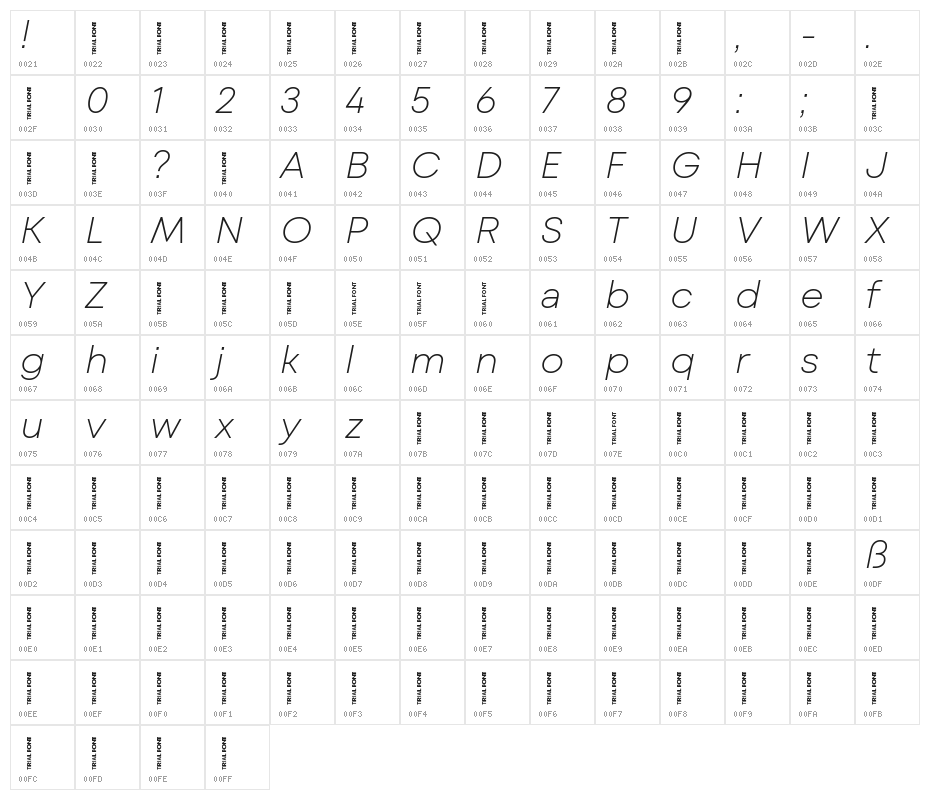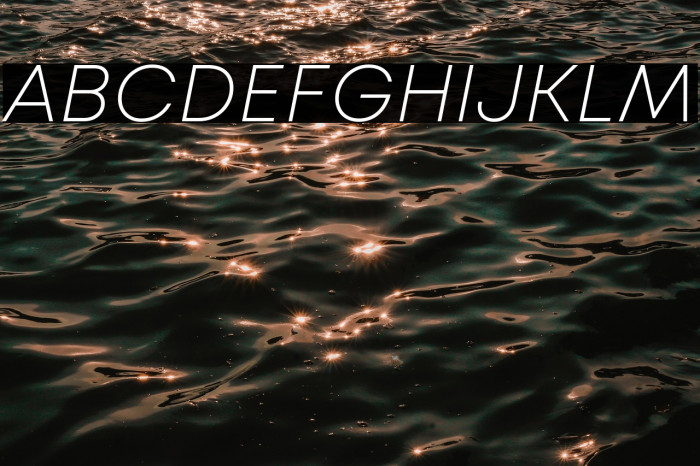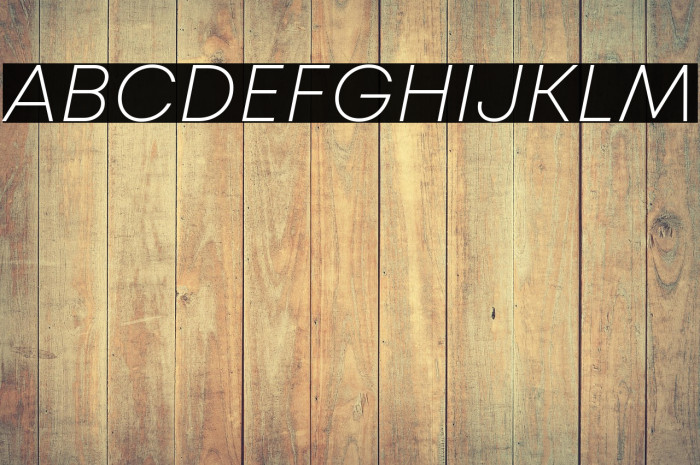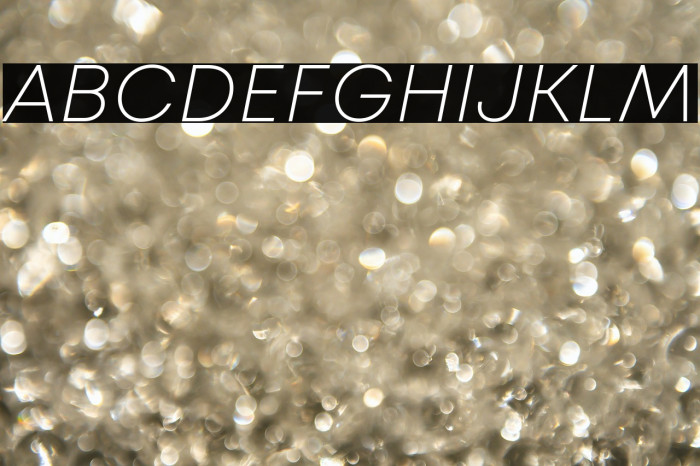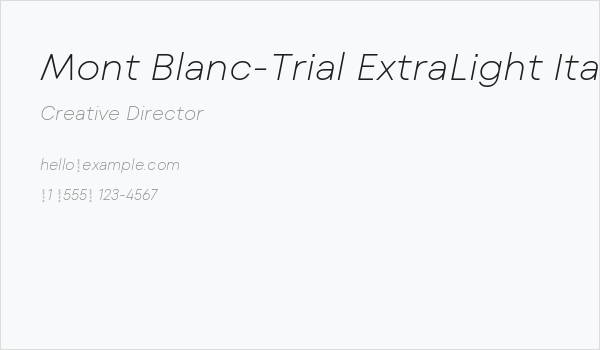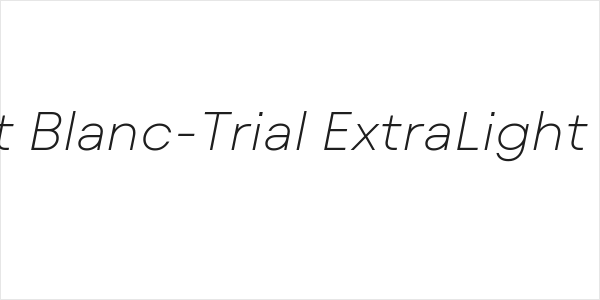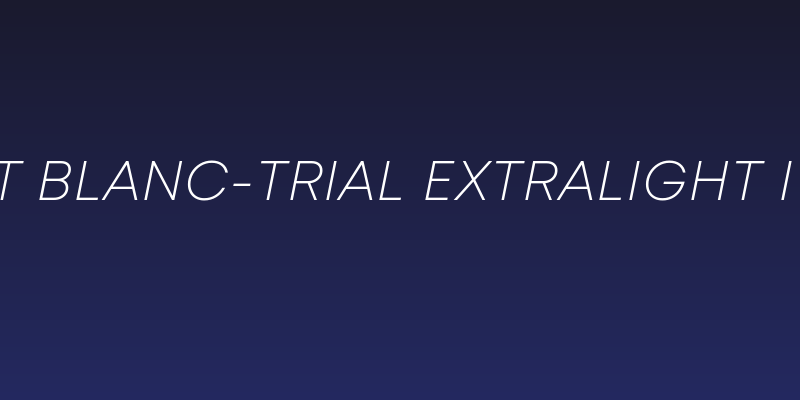
Mont Blanc-Trial ExtraLight Italic Font
Mont Blanc-Trial ExtraLight Italic Description
This font features a sleek and elegant design with a modern aesthetic. The characters are crafted with an extra light weight, giving them a delicate and airy appearance. The italic style adds a sense of motion and fluidity, enhancing its contemporary feel. The strokes are consistent and smooth, with a low contrast between thick and thin lines, which contributes to its clean and minimalist look. The character spacing is normal, ensuring readability while maintaining a stylish appearance. This font is versatile and can be used in various design projects that require a touch of sophistication.
| Proposed Projects | Ideal for fashion magazines, luxury branding, modern websites, and elegant invitations. |